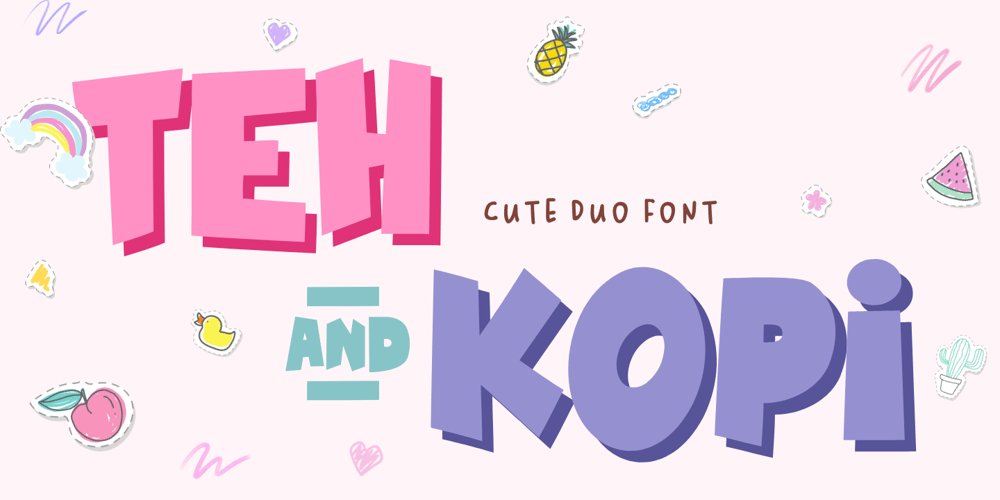
Teh And Kopi Font Family was designed by Doli Harahap and published by Tigade Std. Teh And Kopi contains 2 styles and family package options. Teh and Kopi is a cute and charming display font. Whimsical and a bit quirky, this font will brighten up each of your designs. Add it confidently to your projects, and you will love the results.